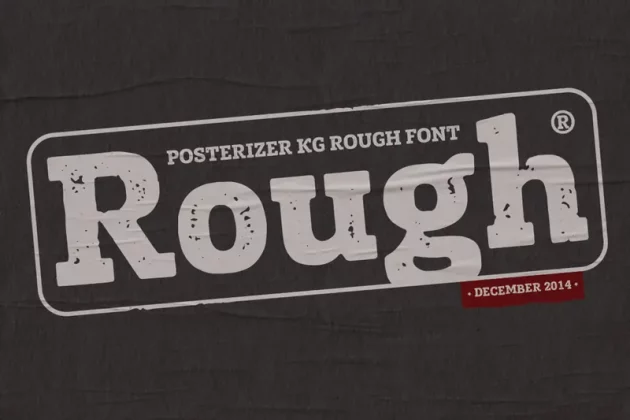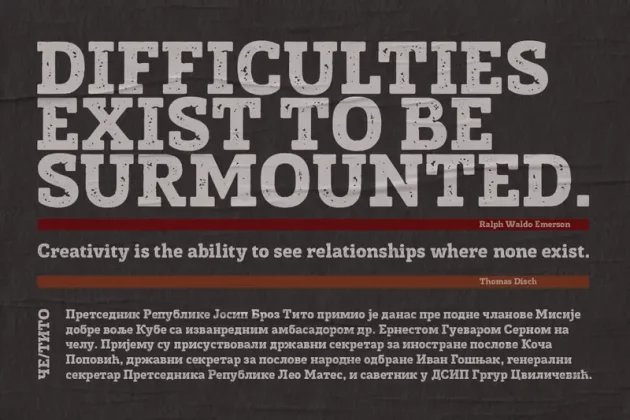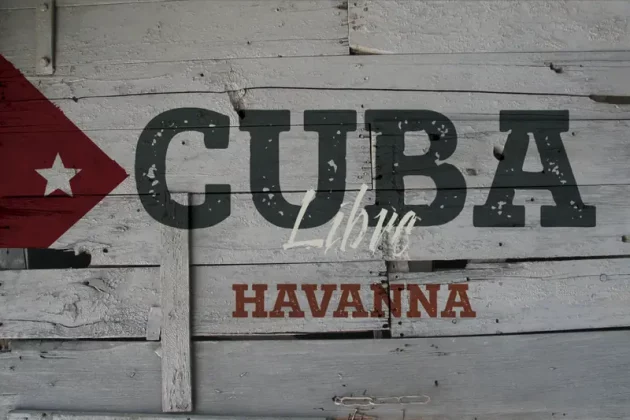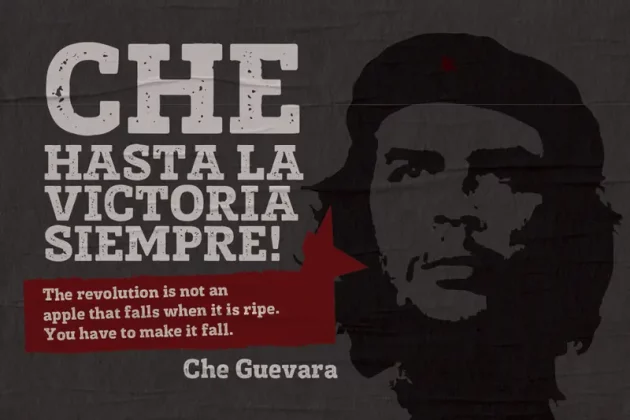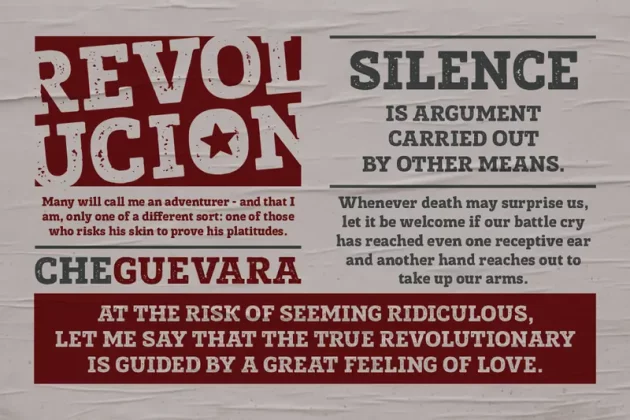
Posterizer KG Rough Font
About Posterizer KG Rough Font
Posterizer KG Rough is basically a hand-printed, texture version of the Egiptian Slab Serif font Posterizer KG that already exist. Posterizer Kg Rough, looks good on substrates with a rustic textures like wood, metal, textiles, rough paper… It contains all the Latin and Cyrillic glyphs.